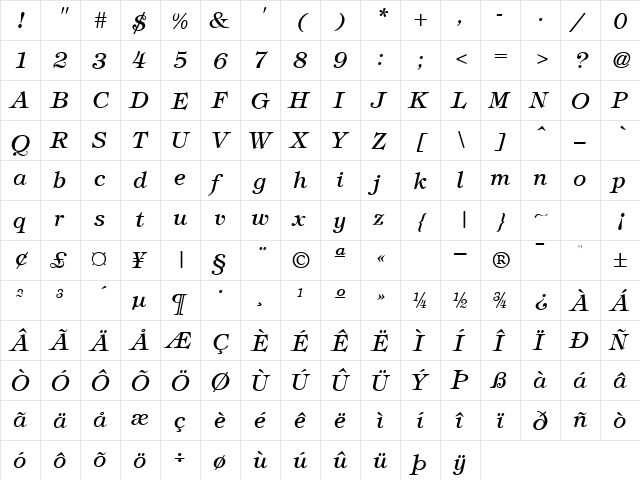
GE Timpani Italic
Design Context for GE Timpani Typeface
GE Timpani is a composed and adaptable typeface that performs quietly and consistently across a wide range of design contexts. Its italic angle brings a sense of urgency and motion to the letterforms.
Pro Tip: Use GE Timpani for emphasis, pull quotes, and subheadings where its slanted energy can add rhythm to the layout.